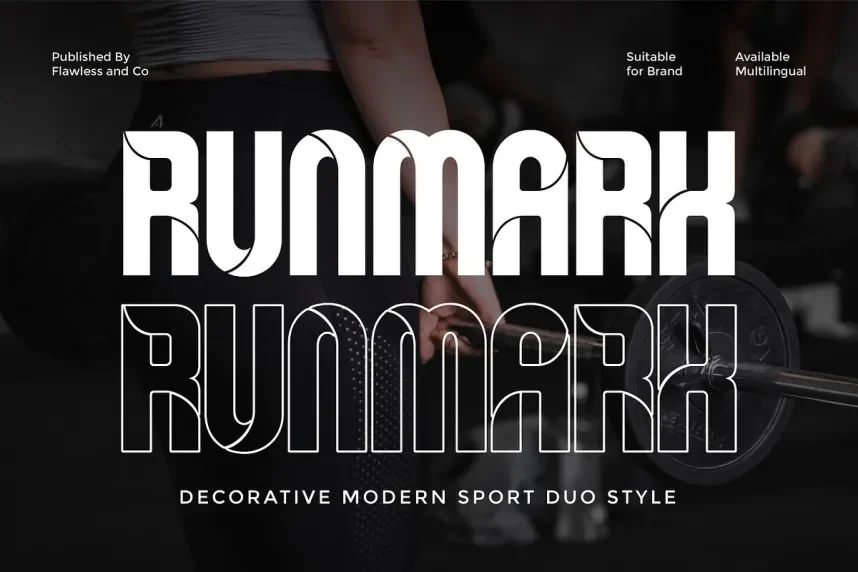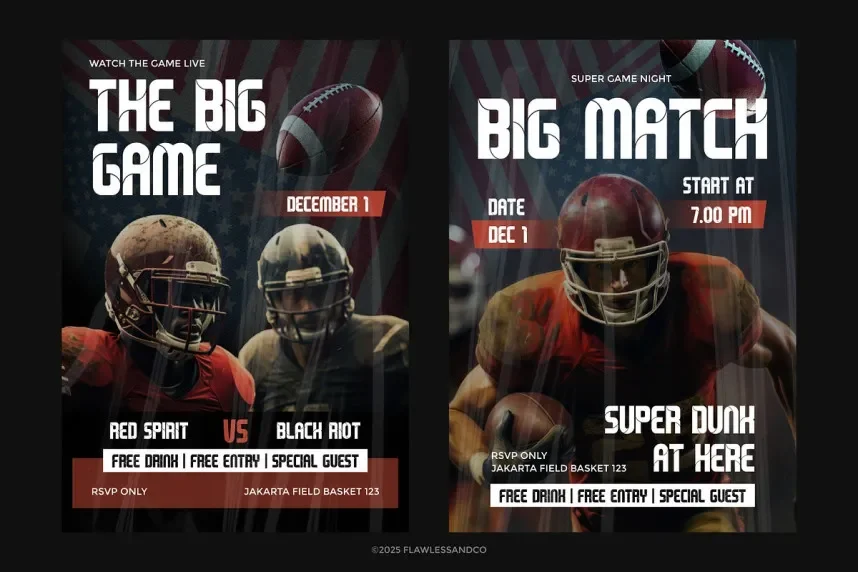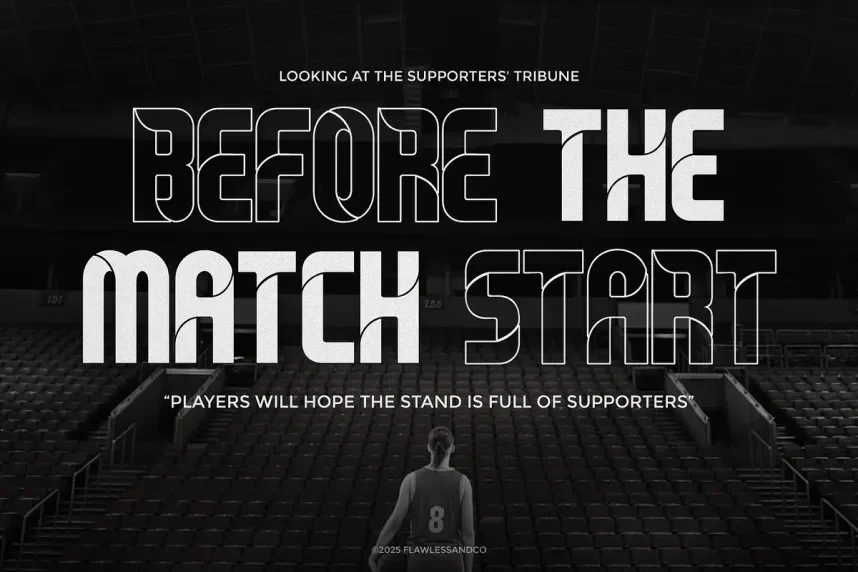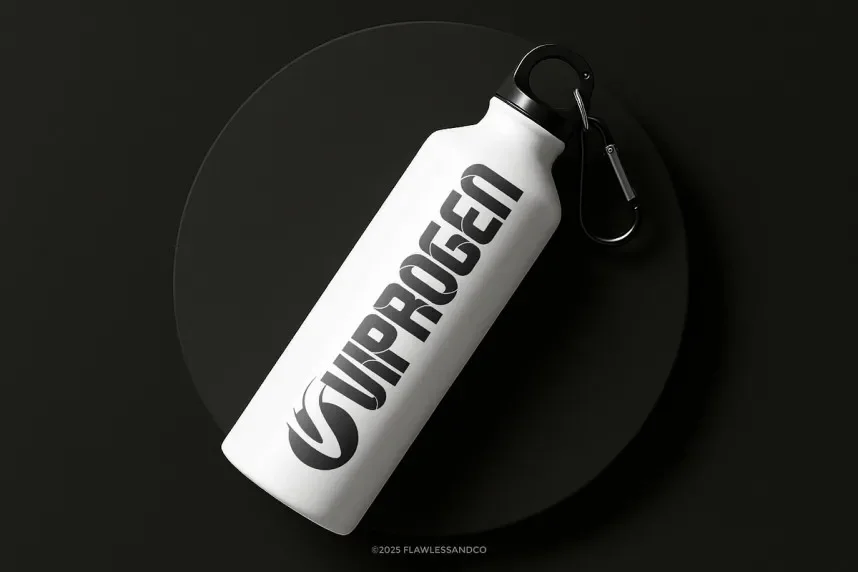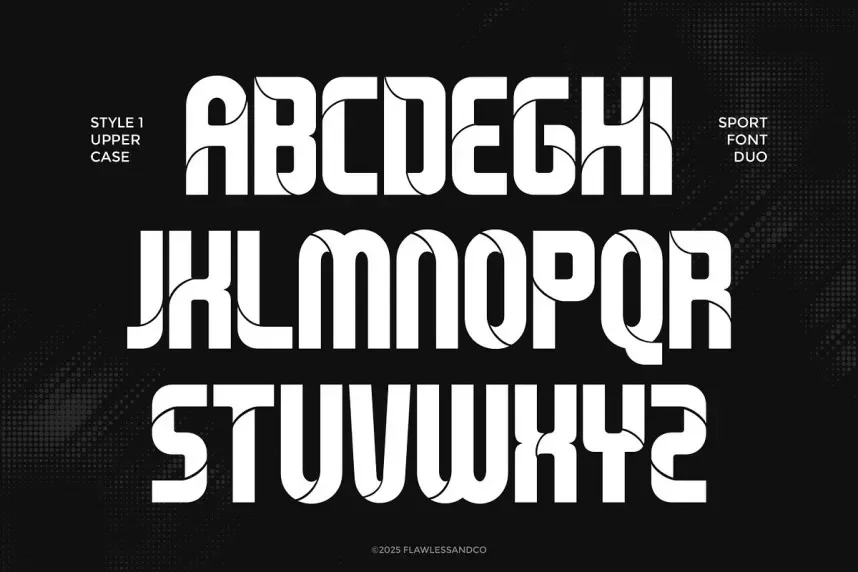
Runmark Font solves layout consistency problems in projects that need sharp structure without heavy ornamentation. It is often chosen when clarity matters more than decoration.
Runmark Font is a display-oriented sans-serif, designed with strong verticals and controlled spacing. Letterforms appear firm and deliberate, helping text hold shape in headlines, posters, and editorial layouts. The font avoids excessive curves, which improves alignment in grid-based designs.